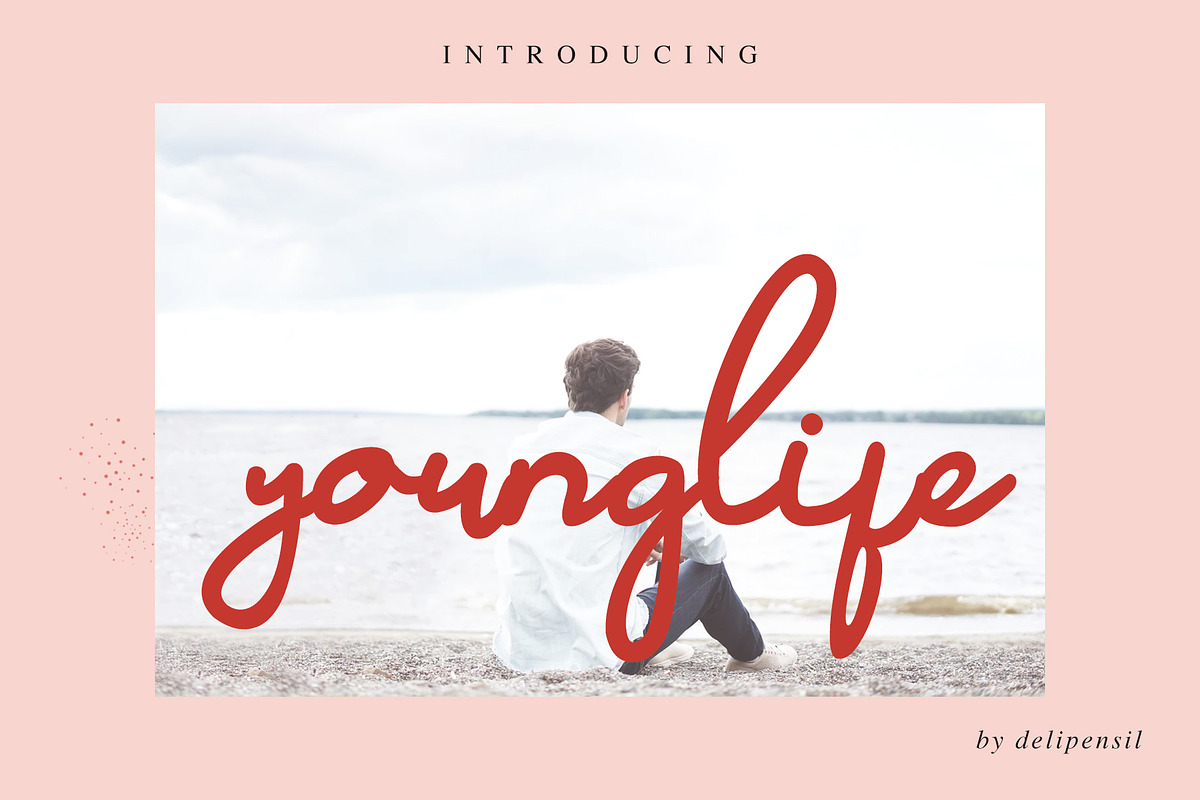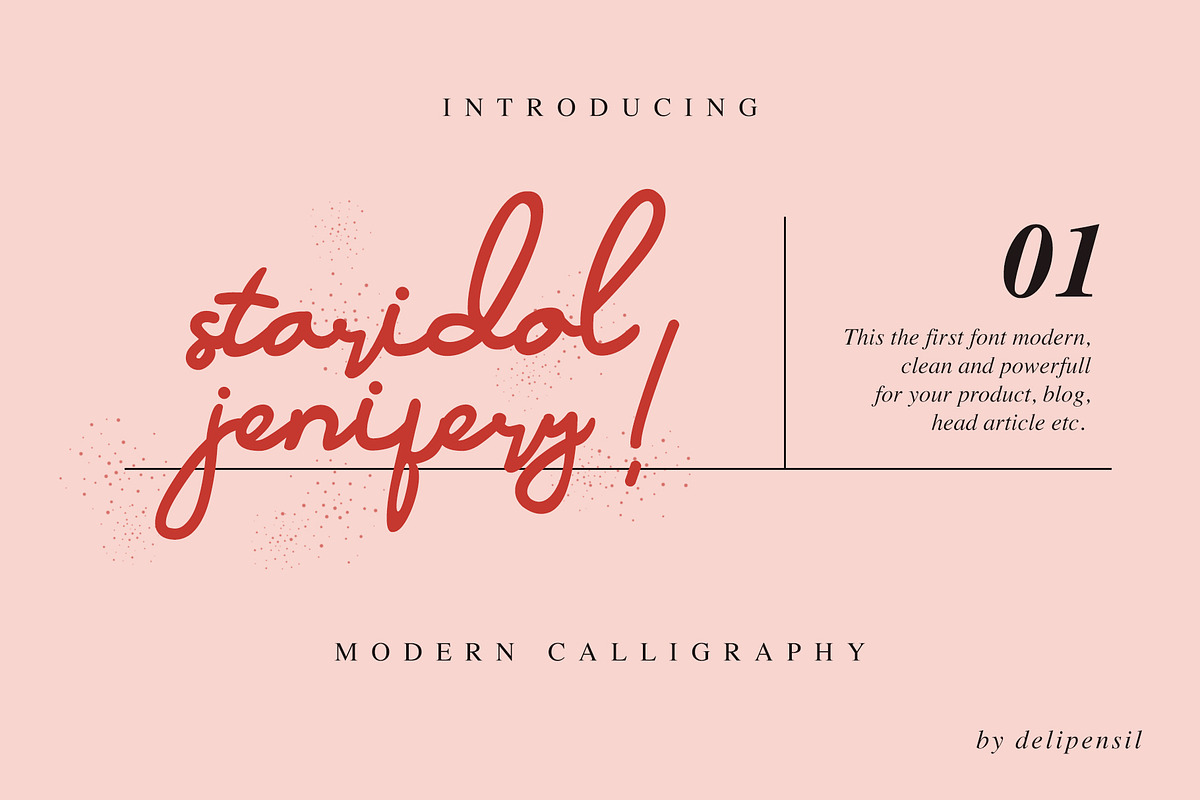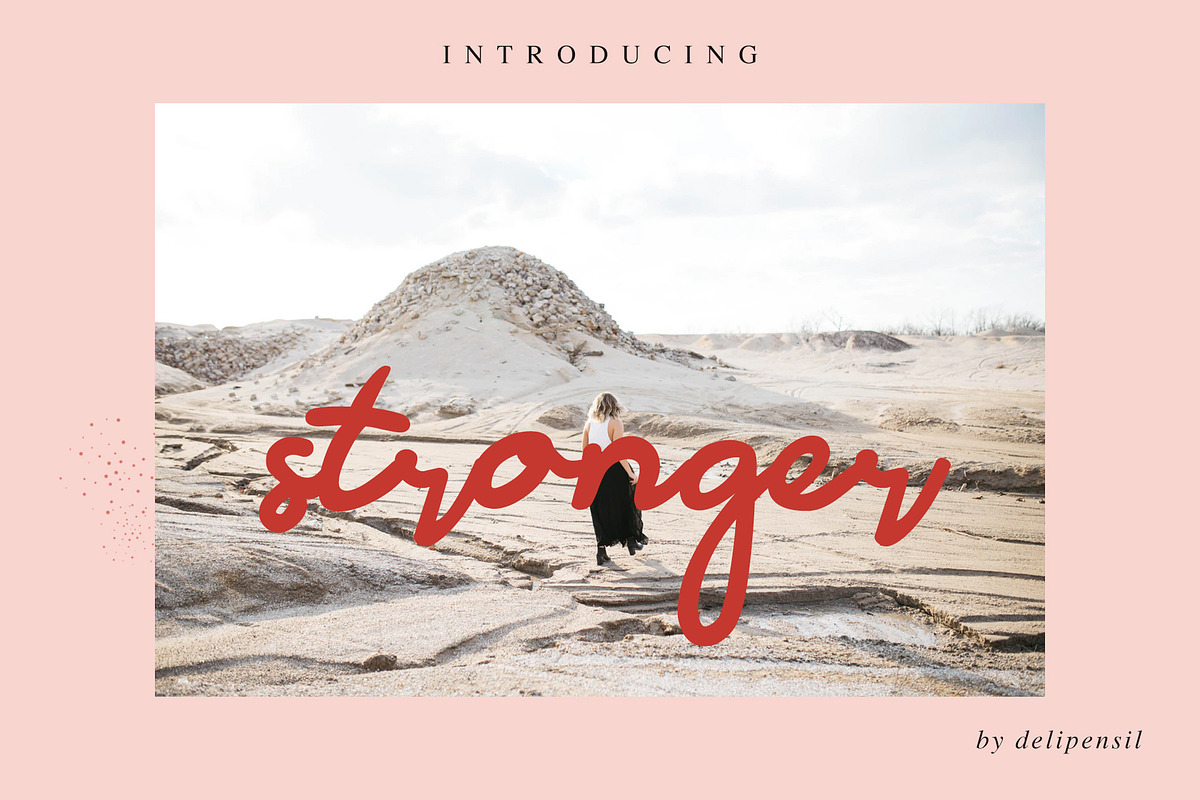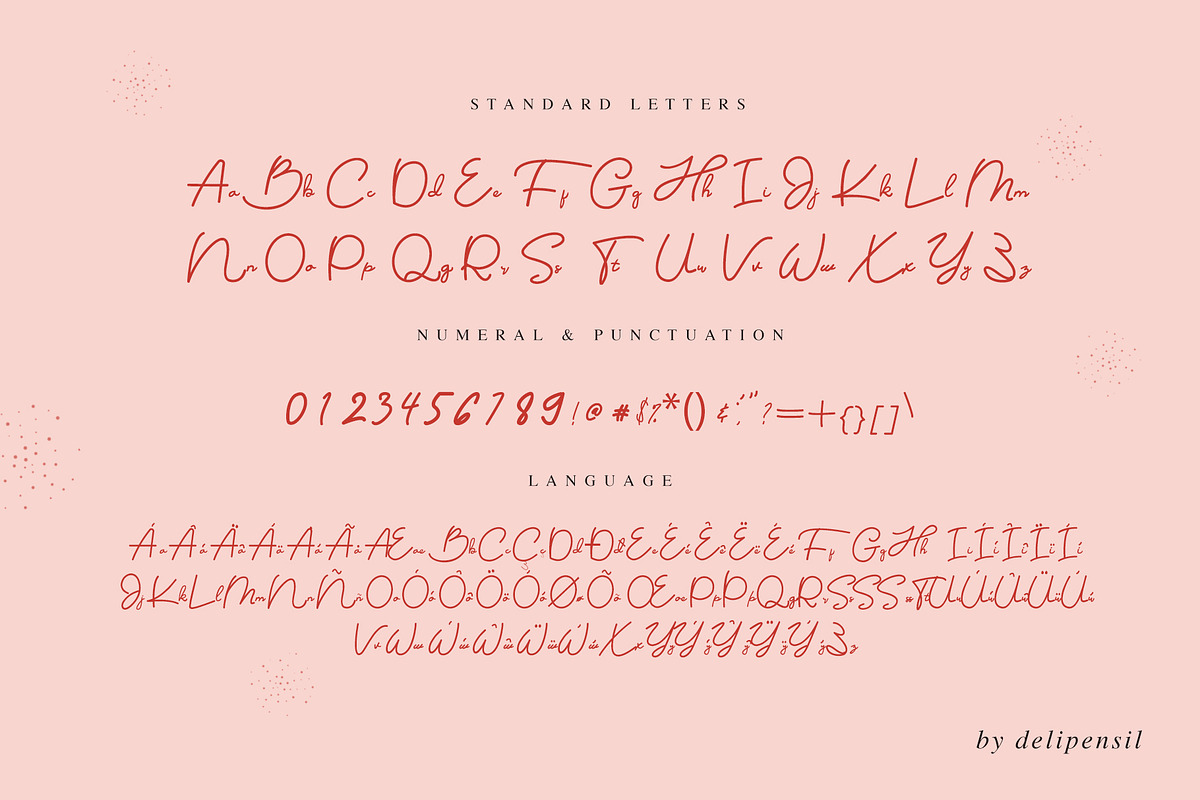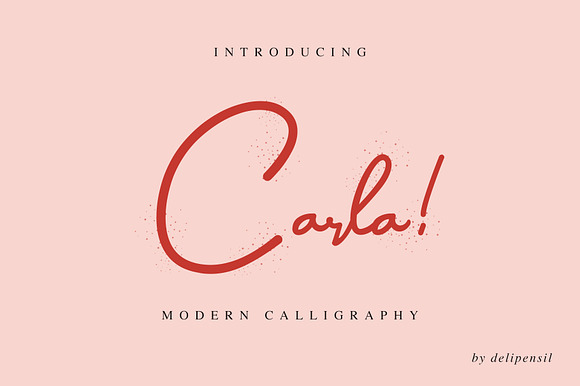
Carla Regular Font
Carla Regular Font Style
Carla Numeral & Punctuation
This font you can use for, head magazine, photography, your logo, signature, and many more :)
Why Carla Regular Font is worth a look
Carla Regular Font by delipensil fits naturally into Branding, posters, packaging, typography.